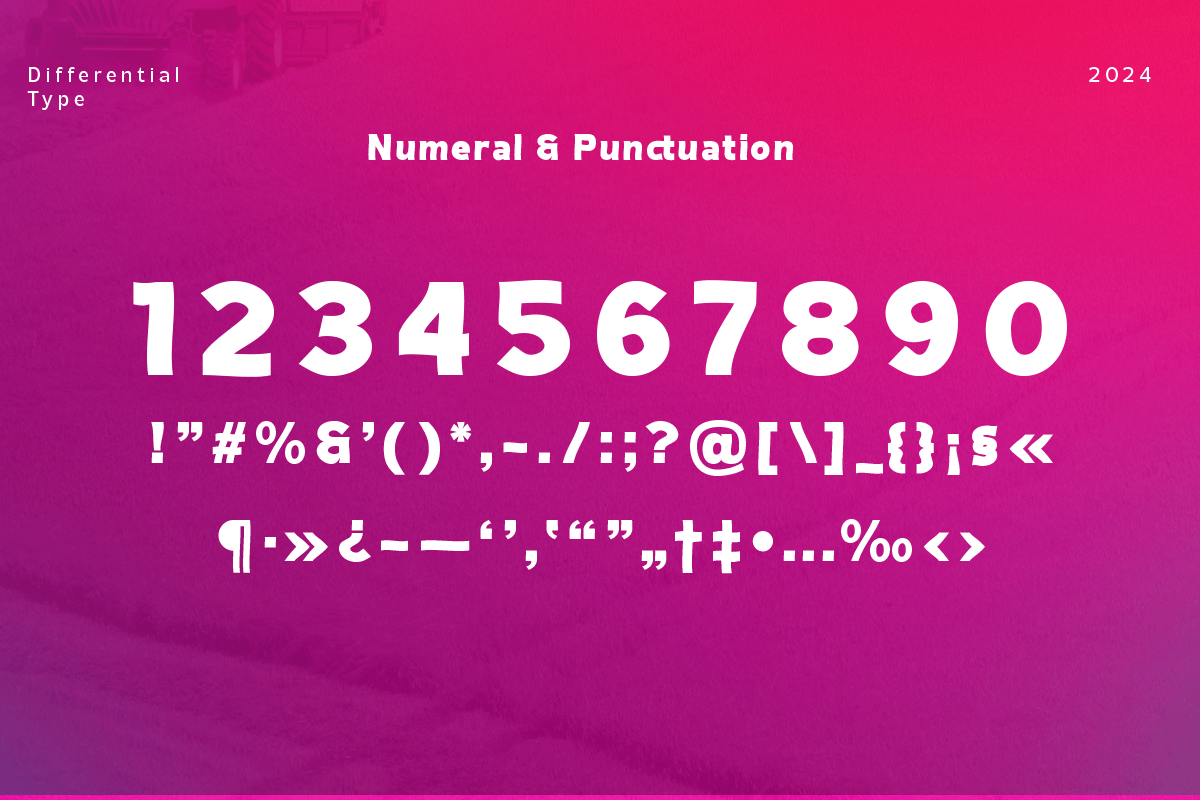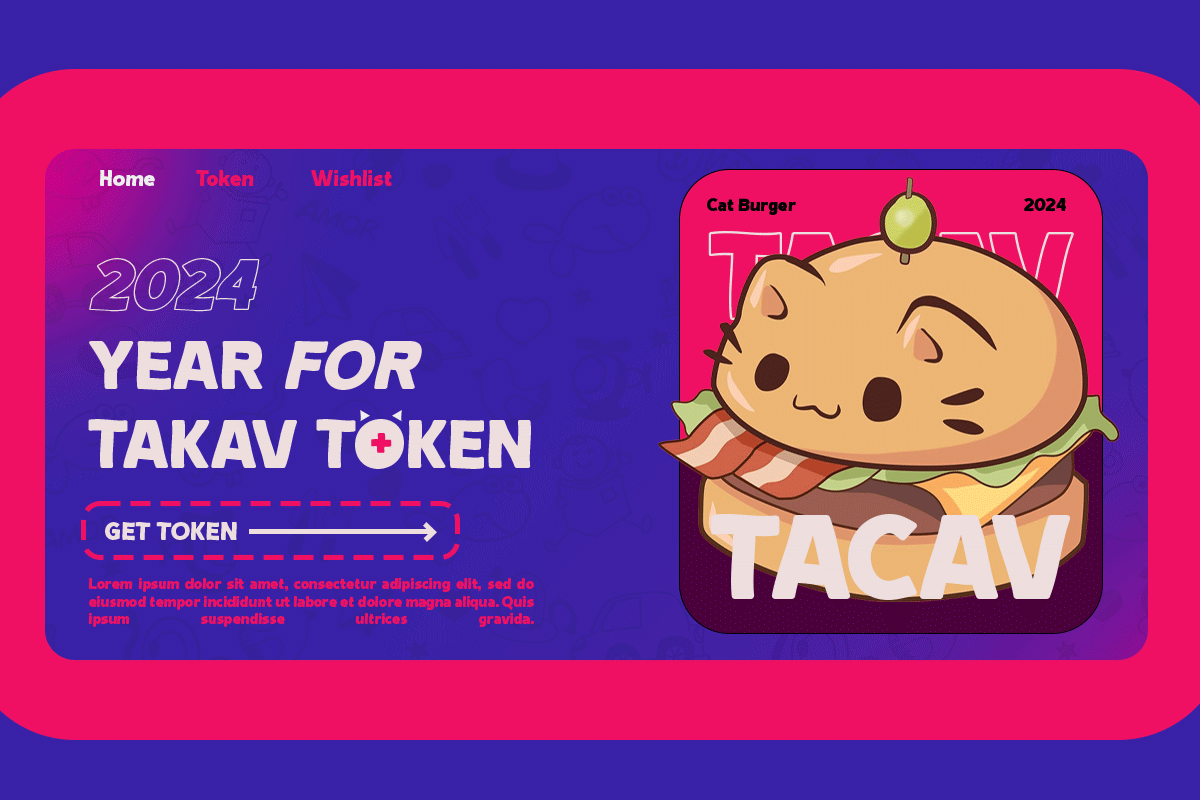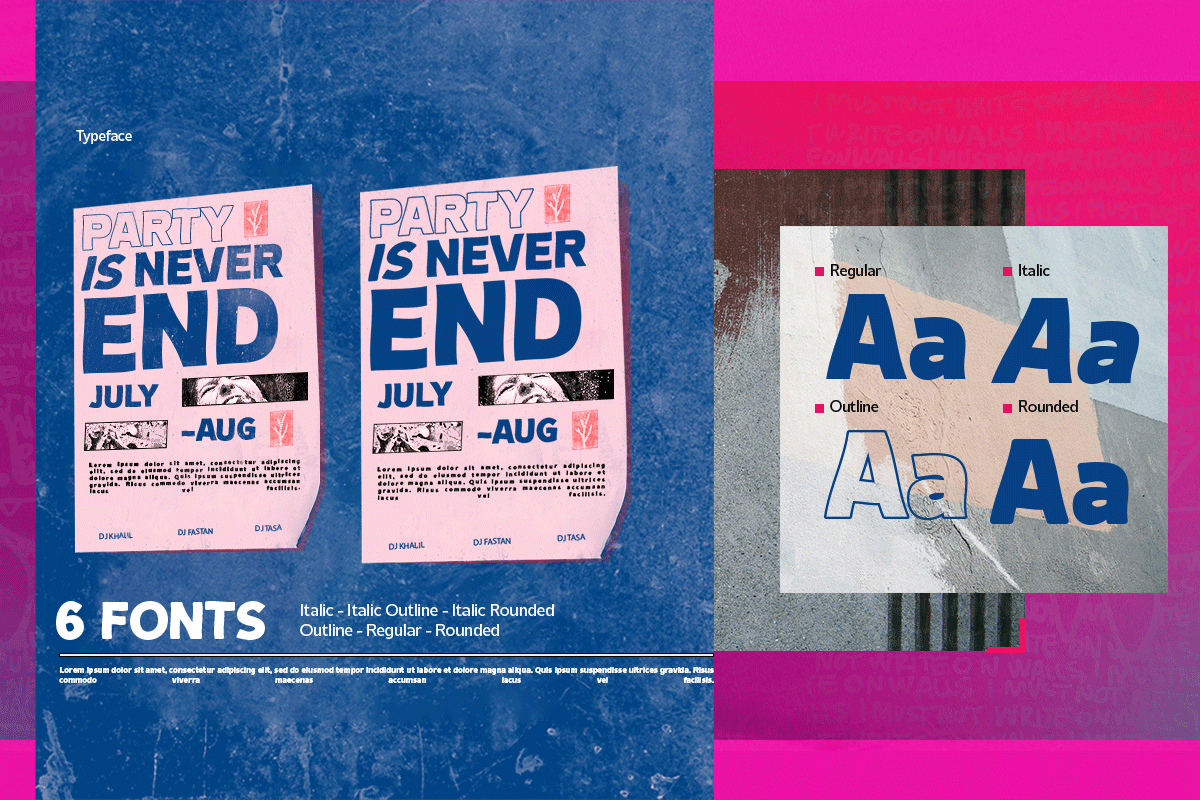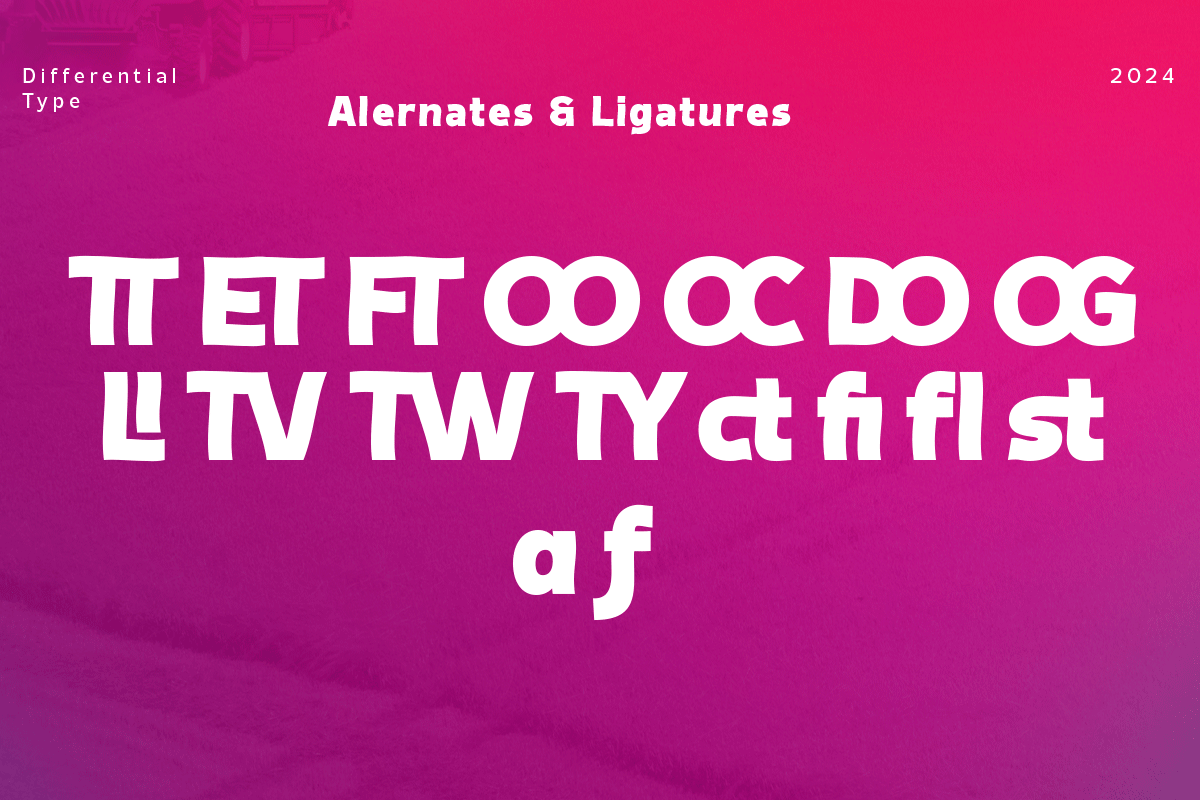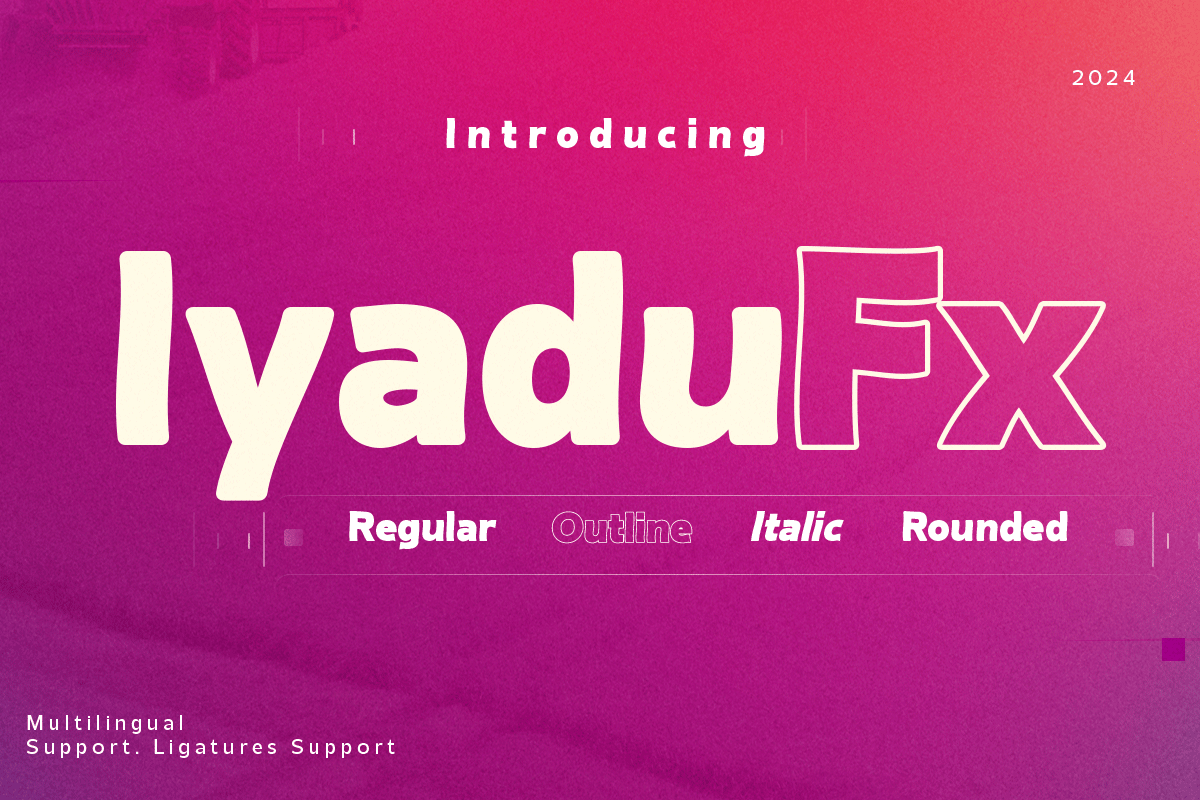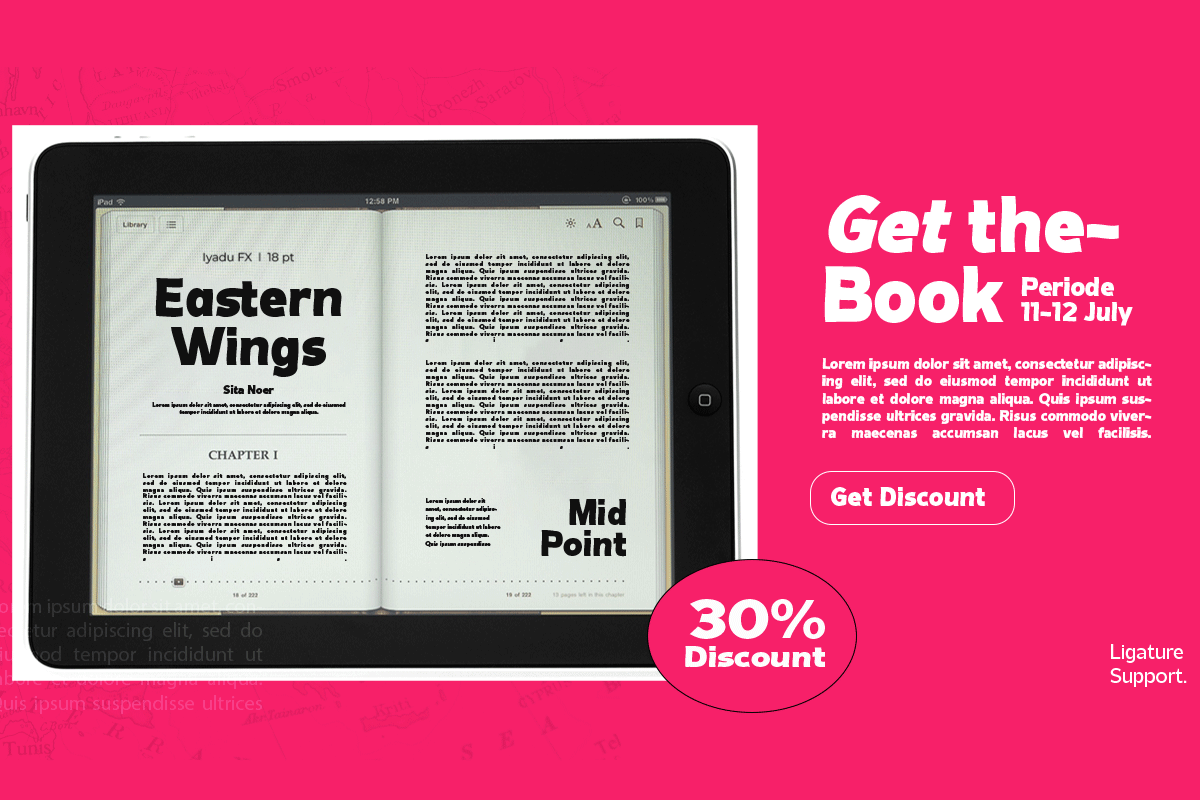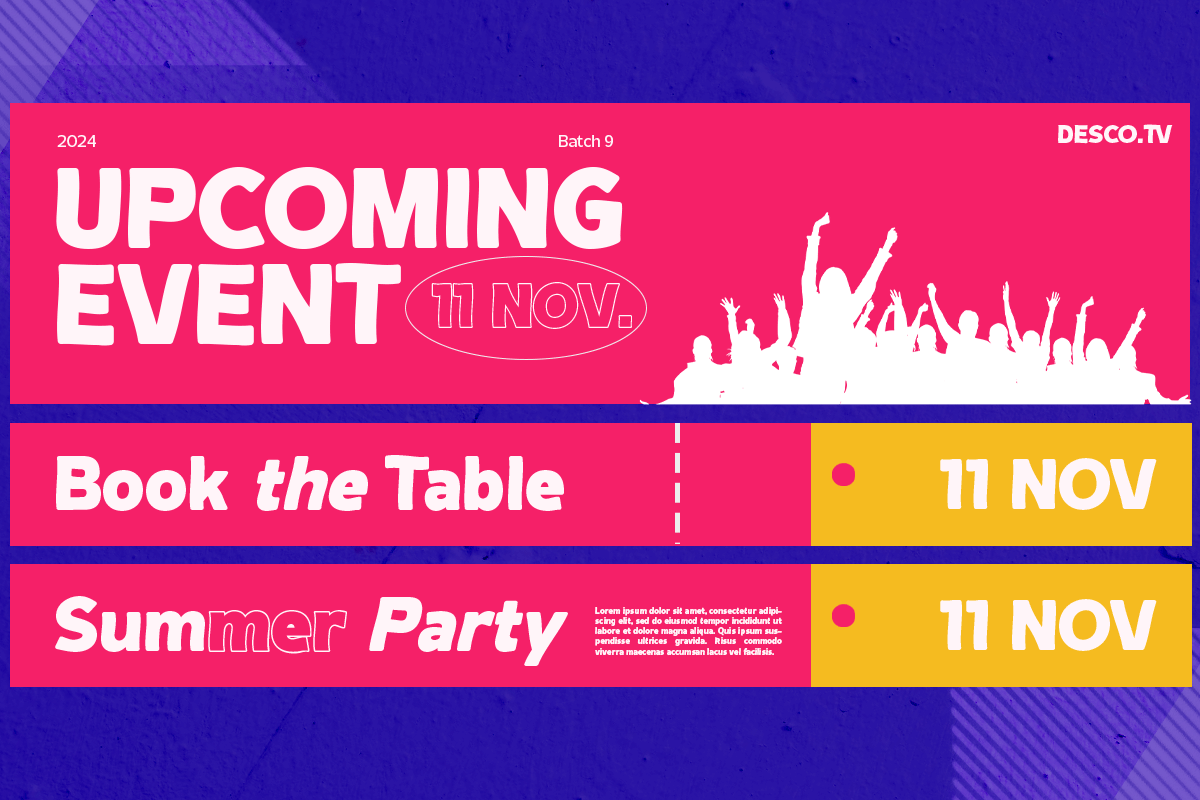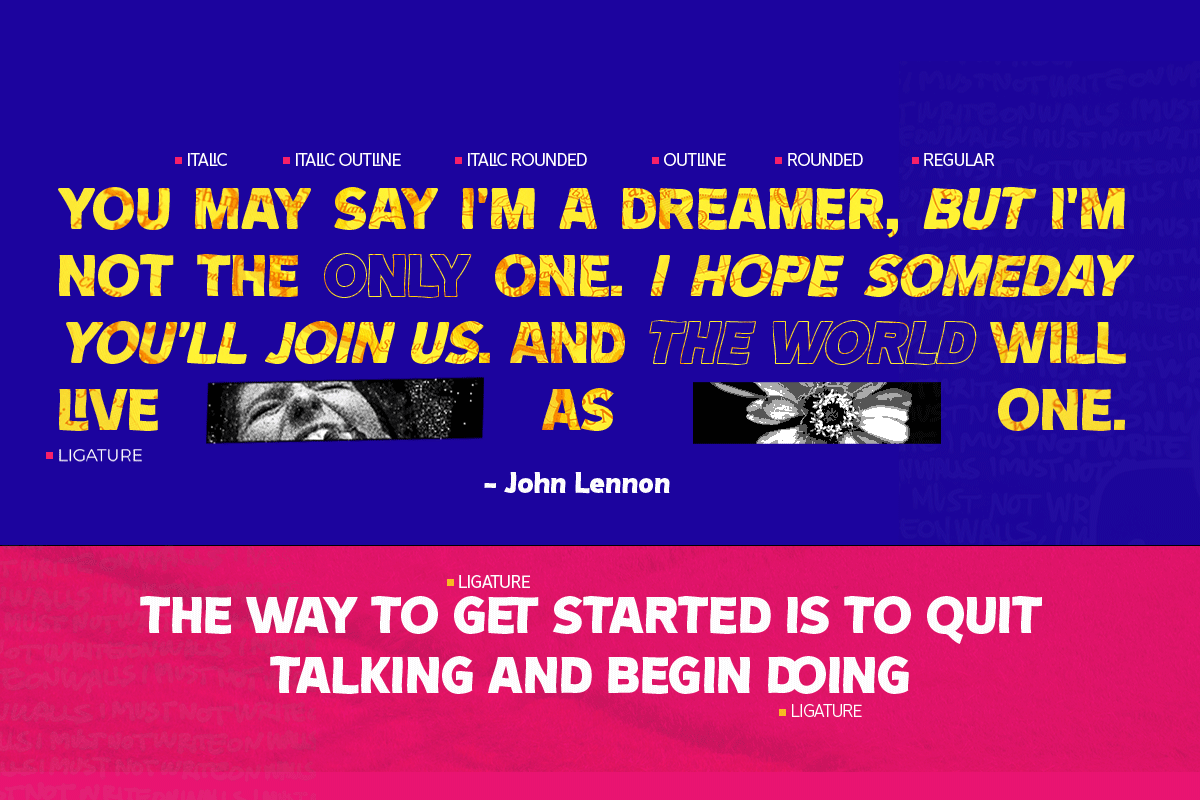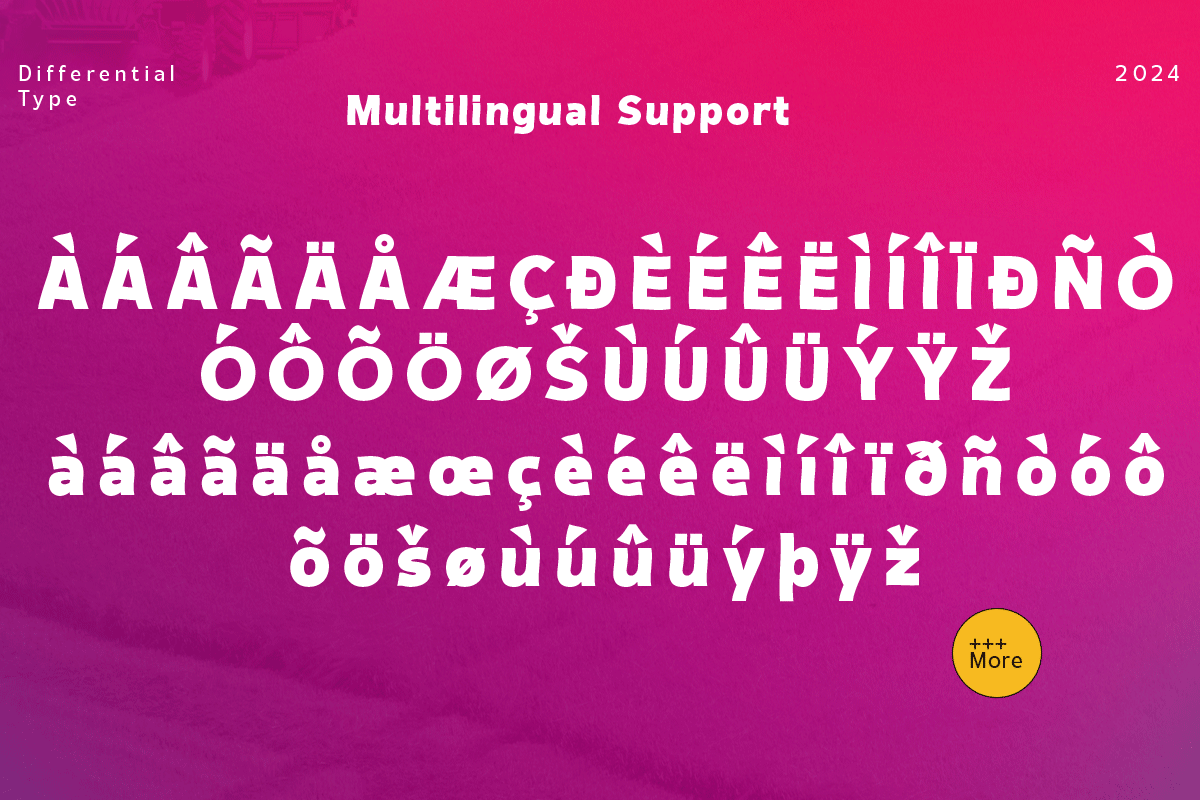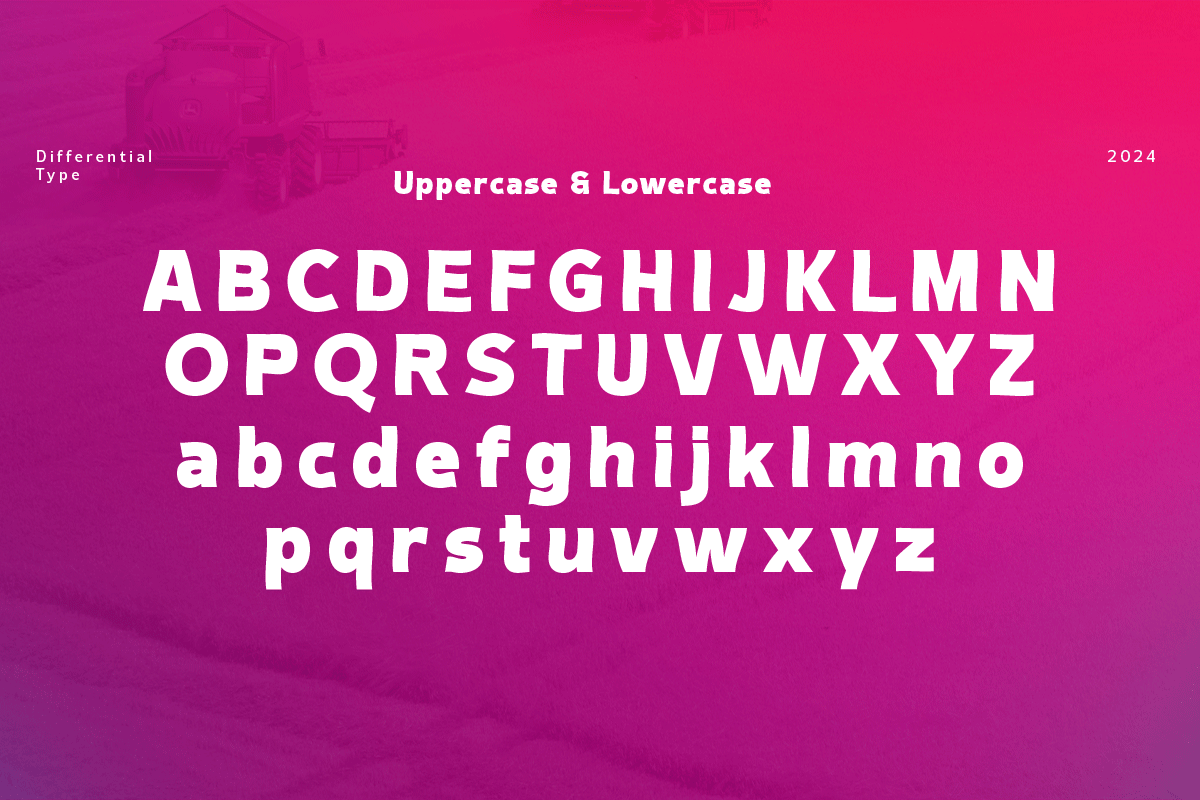
Iyadufx - Sans Display Font
Unveiling Iyadufx, a bold and dynamic sans serif display font that brings energy and personality to your creative works. Diversely styled, Iyadufx is available in six distinct variations - regular, rounded, outline, and their italic counterparts. Ideal for a multitude of designs - from logo designs and product branding to striking headlines and impressive titles, Iyadufx enhances your artistic expression. Incorporate Iyadufx into your designs for that extra edge, helping them to boldly step forward and grab attention.